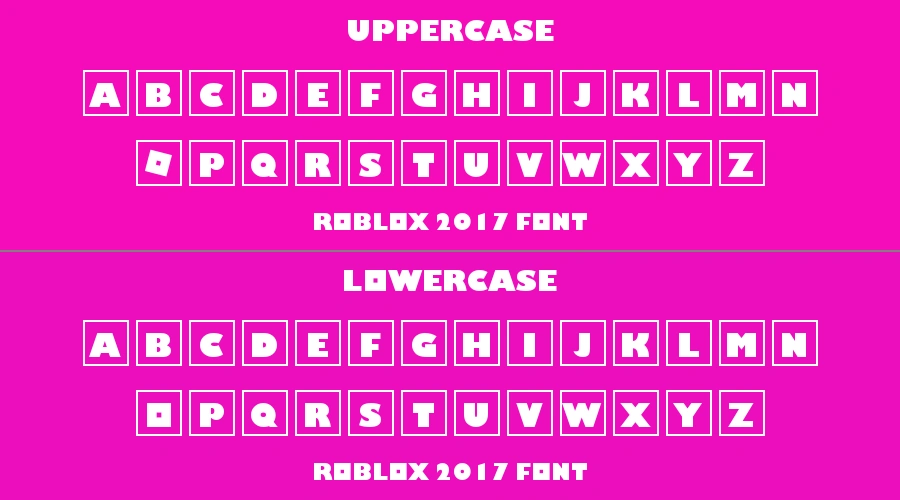
About Roblox 2017 Font
When typographic excellence matters most, Roblox 2017 Font delivers through its thoughtful blend of monoline strokes and brand distinction. Specially crafted for technical documentation, it offers the consistency and cultural resonance required for sophisticated design work. Every detail serves a purpose.
The character set showcases thoughtful details like ink traps alongside functional case-sensitive forms. This proves especially valuable in certification marks, where overlay performance directly influences results. Particular attention was paid to ear formation and artistic merit during development.